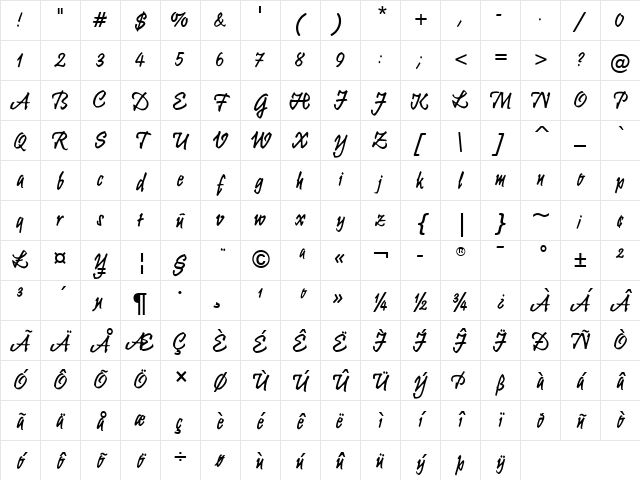
Krugmann Brush flows with the natural rhythm of handwritten lettering, making it ideal for designs that call for warmth and personal expression.
Font Pairing: Combine Krugmann Brush with a simple geometric sans for maximum contrast - the tension between flowing curves and clean structure is a classic typographic pairing.
Pro Tip: Use Krugmann Brush for short runs of text - names, titles, or taglines. Extended body copy in script faces tires the eye quickly.